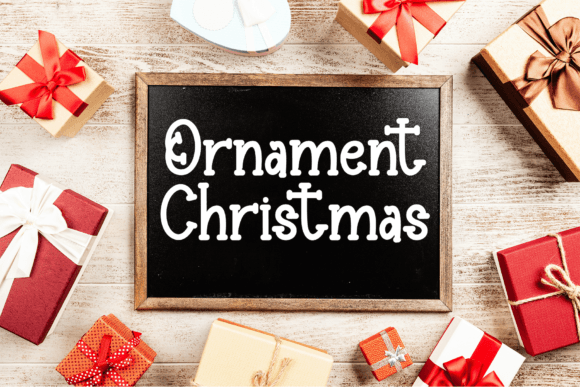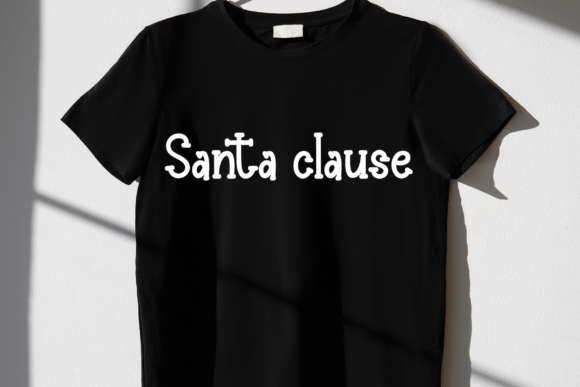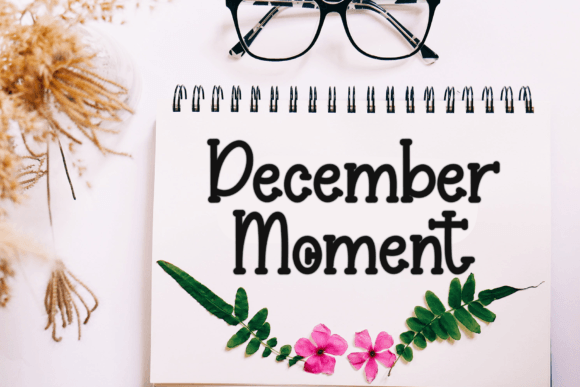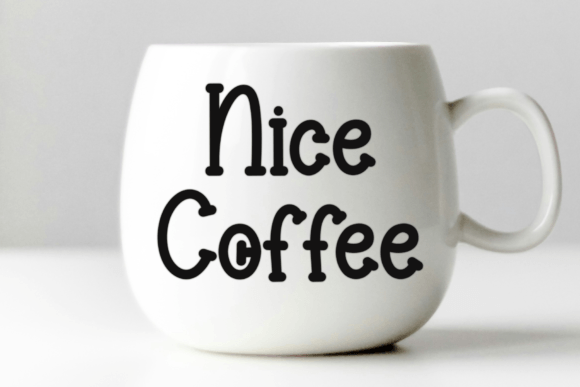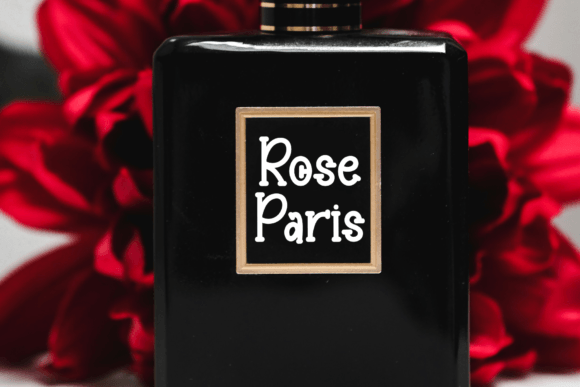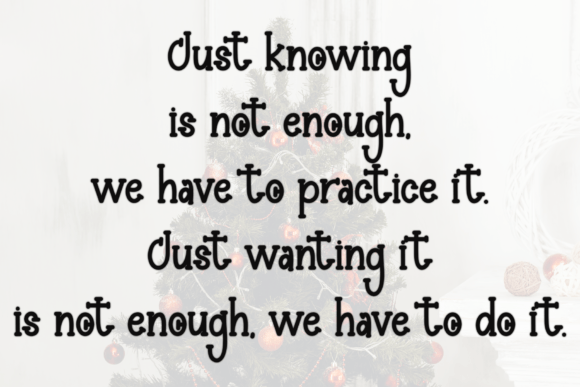
Introducing Christmas Today Font: A Playful and Cheerful Typeface for the Holiday Season
Are you looking for a font that embodies the spirit of Christmas? Look no further than Christmas Today Font, a playful sans-serif handwritten typeface that’s perfect for creating cheerful and uplifting wall art, posters, and prints. With its fun and lively design, this font is sure to bring a positive atmosphere to any space.
What is Christmas Today Font?
Christmas Today Font is a unique and festive typeface that’s designed to capture the essence of the holiday season. Its playful sans-serif handwritten style makes it perfect for a variety of design projects, from Christmas cards and invitations to posters and wall art. The font’s cheerful and uplifting vibe is sure to put a smile on anyone’s face.
Key Features of Christmas Today Font
• Playful sans-serif handwritten style: Christmas Today Font features a fun and lively design that’s perfect for creating cheerful and uplifting designs.
• Easy to read: Despite its playful style, Christmas Today Font is easy to read, making it perfect for use in a variety of design projects.
• Versatile: This font can be used for a wide range of design projects, from Christmas cards and invitations to posters and wall art.
Uses for Christmas Today Font
Christmas Today Font is a versatile typeface that can be used for a wide range of design projects, including:
• Christmas cards and invitations: Create festive and fun Christmas cards and invitations that are sure to impress your friends and family.
• Posters and wall art: Use Christmas Today Font to create cheerful and uplifting posters and wall art that will add a touch of holiday cheer to any room.
• Prints and gift tags: Create fun and festive prints and gift tags that are perfect for the holiday season.
• Social media graphics: Use Christmas Today Font to create festive and engaging social media graphics that are sure to get your followers in the holiday spirit.
Tips for Using Christmas Today Font
Here are a few tips for using Christmas Today Font in your design projects:
• Experiment with different colors: Christmas Today Font looks great in a variety of colors, so don’t be afraid to experiment and find the perfect color scheme for your design project.
• Use it with other fonts: Christmas Today Font pairs well with a variety of other fonts, so feel free to get creative and use it with other typefaces to create a unique and interesting design.
• Keep it simple: While Christmas Today Font is a playful and fun typeface, it’s still easy to read, so keep your design simple and uncluttered to ensure that your message gets across.
Why Choose Christmas Today Font?
There are many reasons why you should choose Christmas Today Font for your holiday design projects. Here are just a few:
• Unique and festive design: Christmas Today Font features a unique and festive design that’s sure to stand out from the crowd.
Christmas Today Font is a playful and cheerful typeface that’s perfect for creating festive and fun holiday designs. With its easy-to-read design and versatile style, this font is sure to be a hit with designers and crafters alike. So why wait? Download Christmas Today Font today and start creating your own cheerful and uplifting holiday designs.